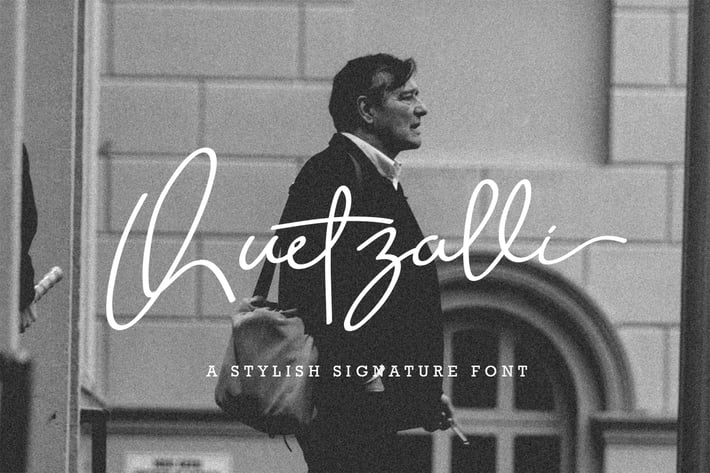
Quetzalli Signature Font
Introducing Quetzalli, a very stylish font with characteristics that have a distinctive beautiful hand stroke, which are perfect for your design needs and especially for the benefits of design branding